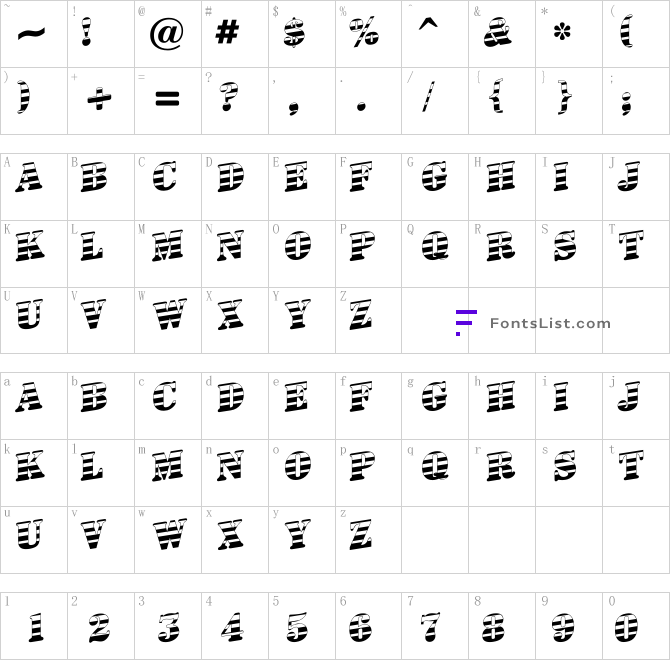
- Font Name:a_SignboardTitulGrdUp
a_SignboardTitulGrdUp.ttf is a very beautiful artistic font, a_SignboardTitulGrdUp.ttf is widely used in the design and printing of various books and pictures,a_SignboardTitulGrdUp.ttf has a strong visual impact,a_SignboardTitulGrdUp.ttf is a commonly used font in newspapers, magazines and books, and is used in posters, e-commerce Poster design, store design, logo design, font design and other fields.a_SignboardTitulGrdUp.